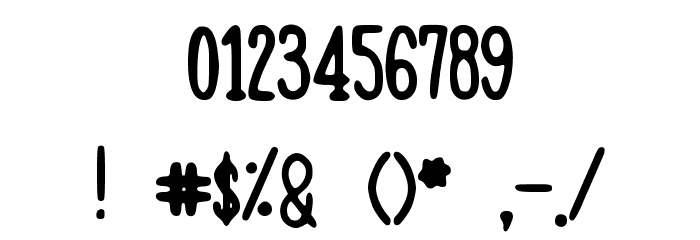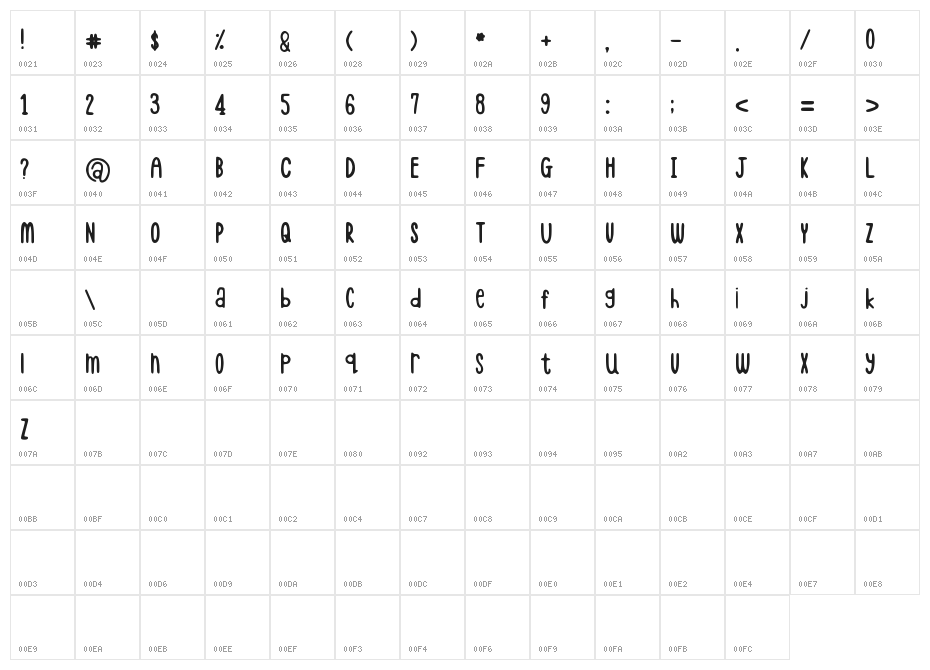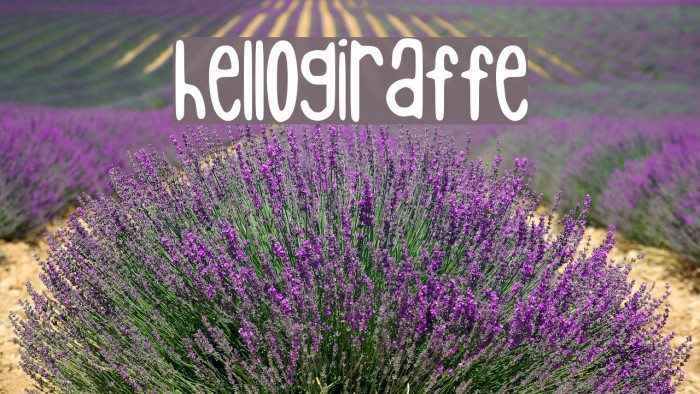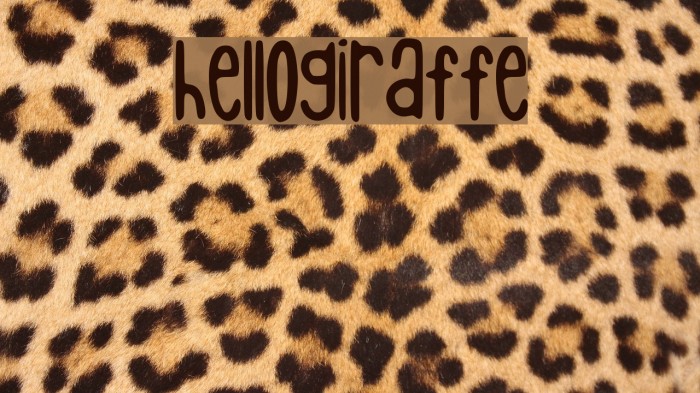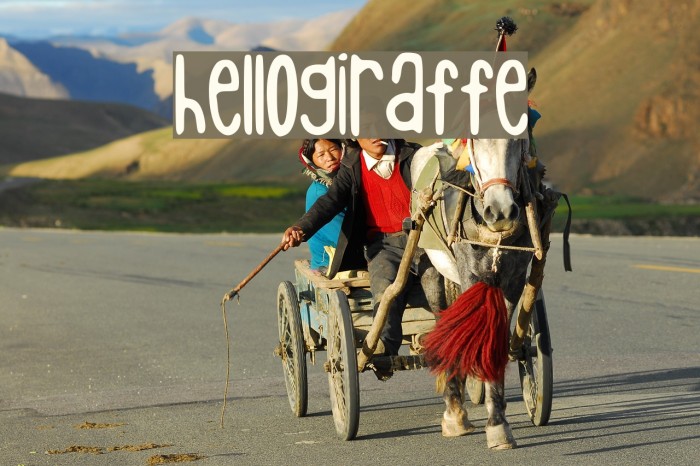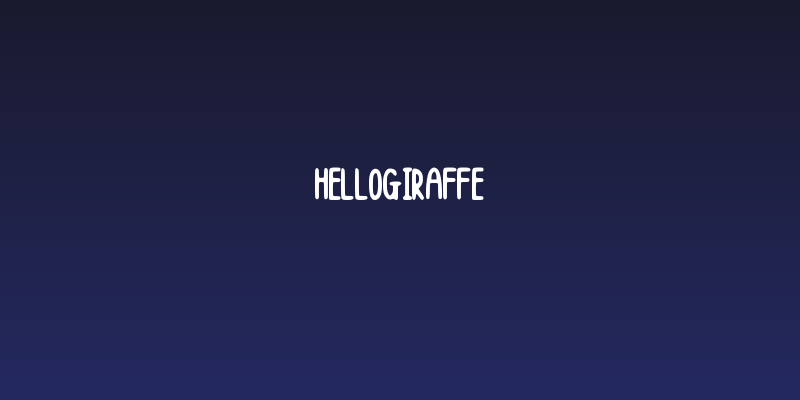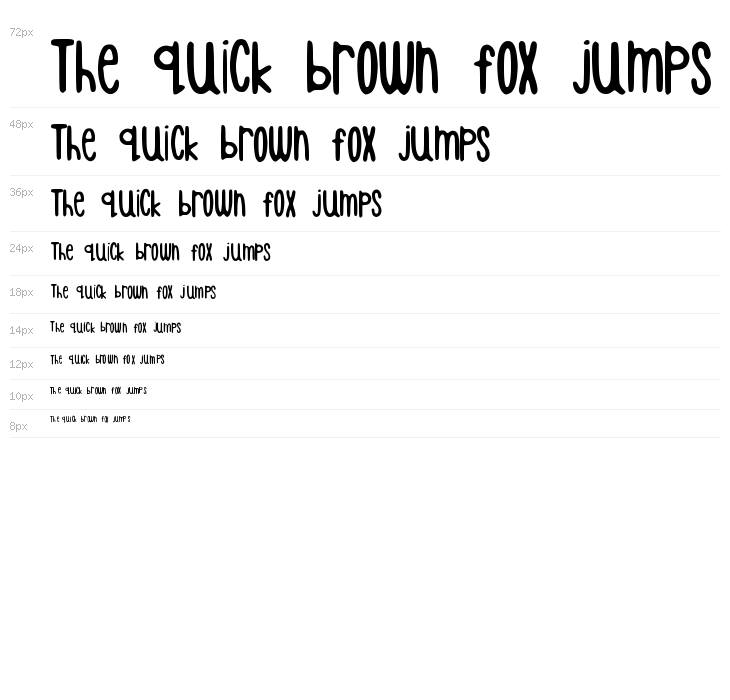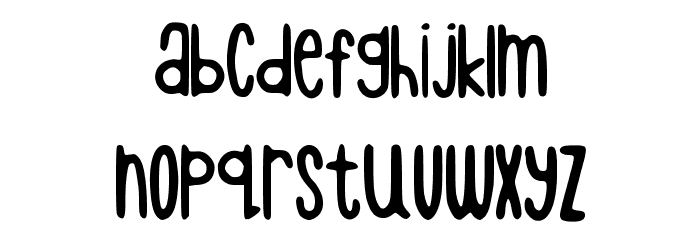
hellogiraffe Font
hellogiraffe Description
This playful and rounded font features a whimsical style with smooth curves and a friendly appearance. The characters are bold and slightly elongated, giving them a unique and approachable look. The uppercase and lowercase letters maintain consistent stroke widths, contributing to a cohesive design. Numbers and special characters follow the same playful theme, making this font suitable for a variety of creative projects. Its overall style is both modern and fun, perfect for capturing attention in a lighthearted manner.